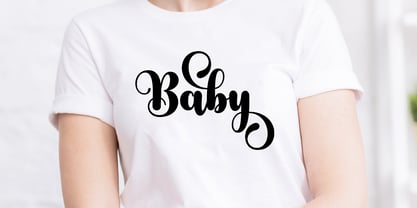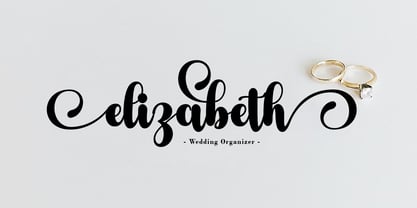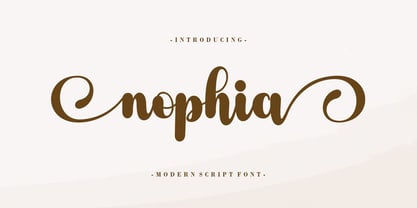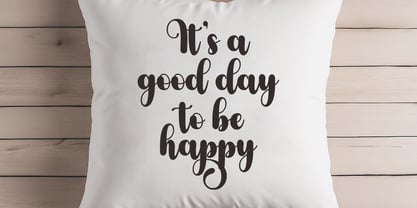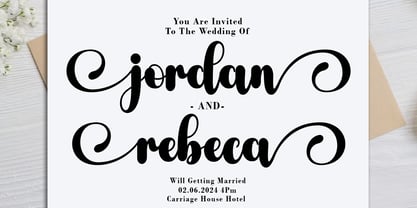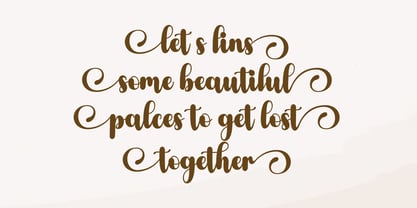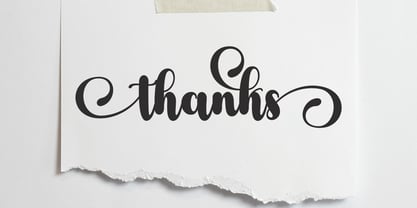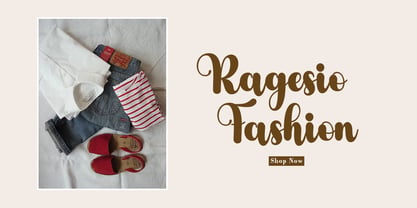
Nophia Script
The Nophia Script Font Family was designed by Agus Pujiyono and published by Good Design. Nophia Script contains 1 styles. More about this family
Nophia Script a fresh & modern new script with a handcrafted calligraphy style, decorative characters and dancing baseline! Very pretty for invitations such as greeting cards, branding materials, business cards, quotes, posters and more!!